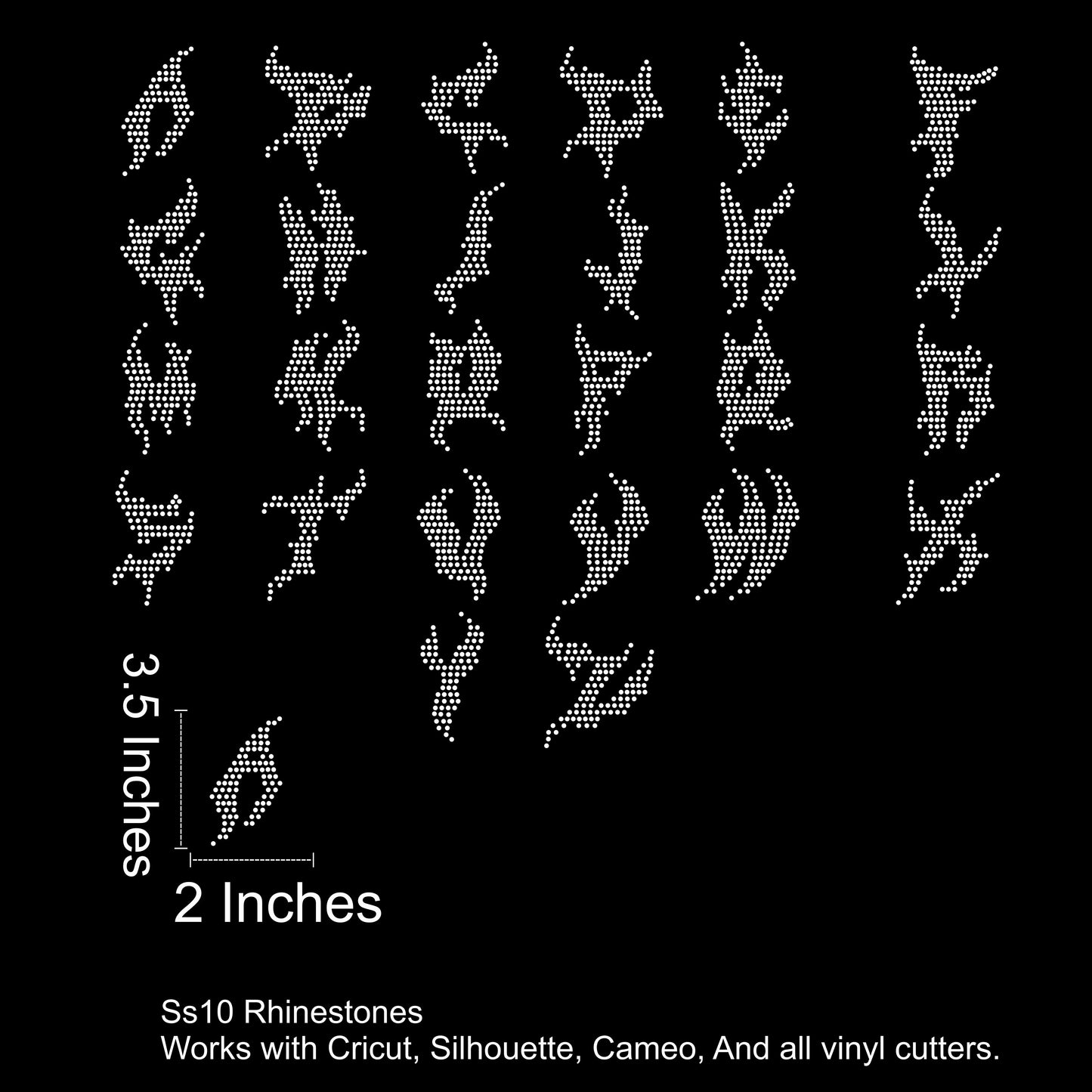
Shadow Font Rhinestone SVG File 3.5 Inches
Shadow Font – Rhinestone Font SVG (SS10 Size Compatible)
Add bold, moody energy to your next project with Shadow Font, a unique rhinestone-ready design made for SS10 stones. With dramatic curves and striking form, this font is built to stand out on custom apparel, accessories, and statement pieces.
Font Details:
• Capital and lowercase letters A–Z
• All letters approx. 3.5 inches tall
• Clean spacing and layout – rhinestone-ready with no adjustments needed